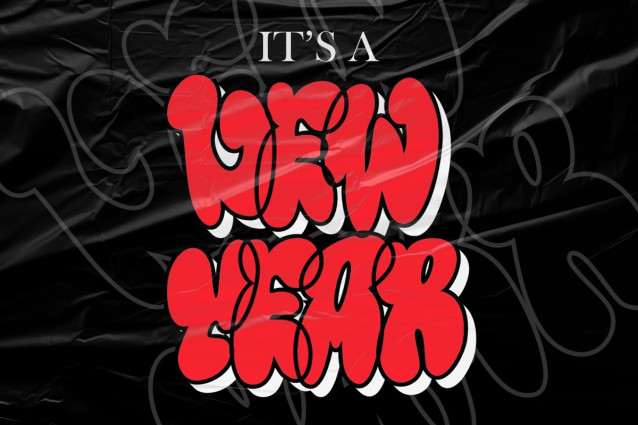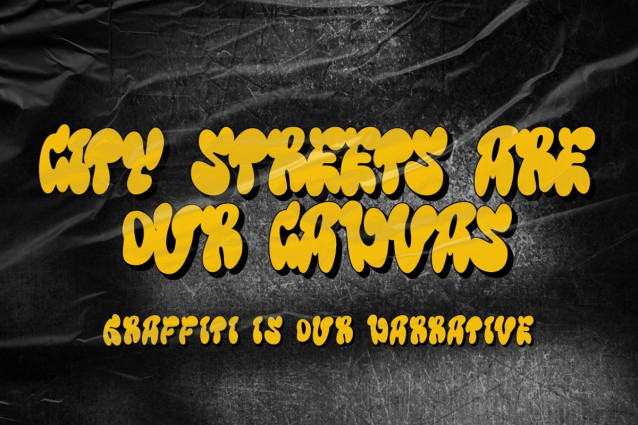
Teenage Decay Font
Teenage Decay Font is a bold and dynamic display bubble font inspired by the vibrant world of graffiti and street art. This font captures the rebellious and expressive nature of urban aesthetics. With three unique styles – regular, outline, and extrude – Teenage Decay offers versatility and depth for your creative projects.